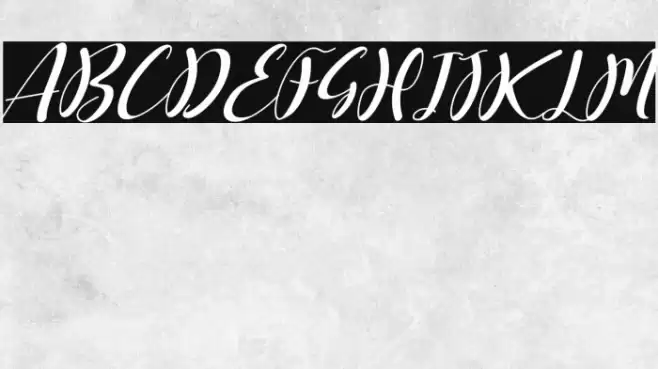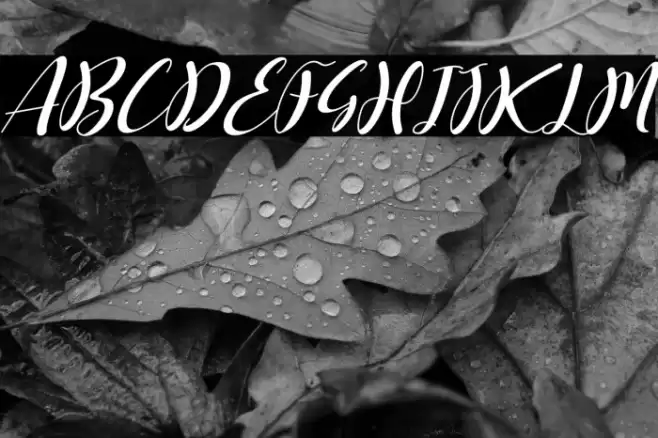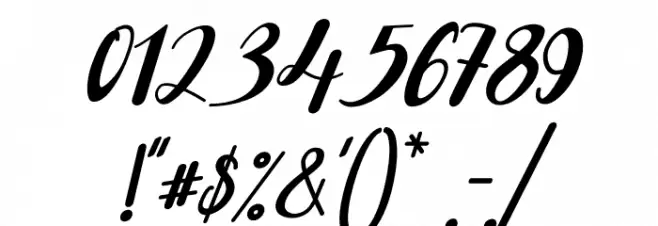
kimberlly lovely Italic Font
kimberlly lovely Italic Description
This font features an elegant and flowing script style, characterized by its smooth, cursive letterforms and graceful curves. The uppercase letters are bold and sweeping, with a distinct flair that adds a touch of sophistication. The lowercase letters maintain a consistent slant, enhancing the overall fluidity and movement of the text. Numbers and special characters are designed to match the script's aesthetic, providing a cohesive look. The font's italic nature emphasizes its dynamic and stylish appearance, making it suitable for projects that require a personal and artistic touch.
An elegant, flowing script font with a dynamic italic style from Uncategorized fonts.
- Font: kimberlly lovely Italic
- Proposed Projects: Ideal for wedding invitations, greeting cards, branding, and elegant logo designs.
- Overall Style: Elegant, Artistic
- Use Case: Logos, Invitations, Branding